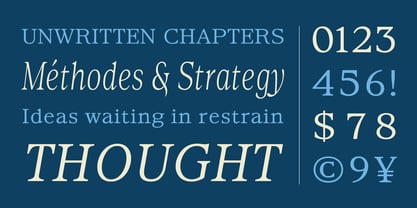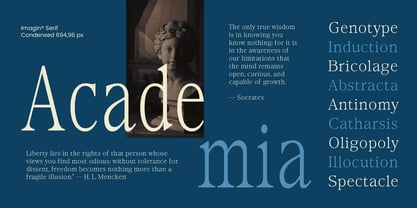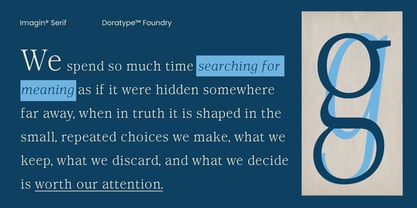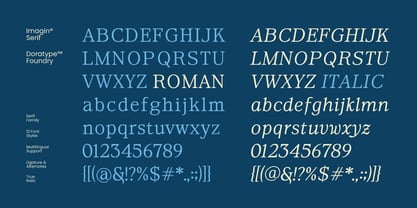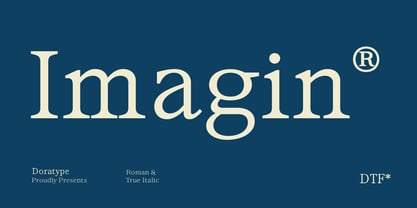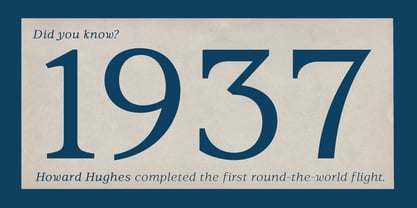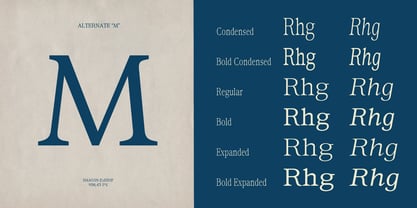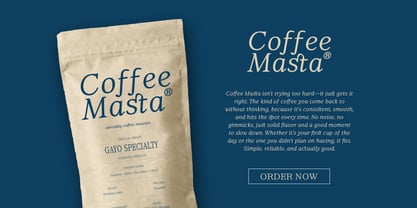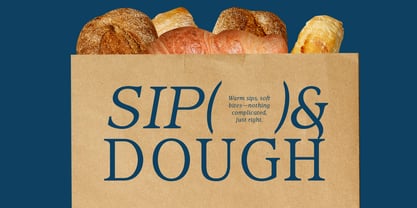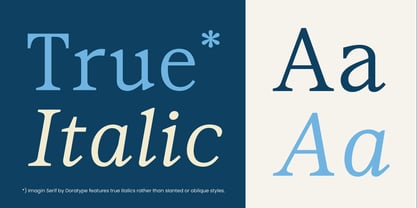
Imagin
by Dora Typefoundry
The Imagin Font Family was designed by Zahratul Laila and published by Dora Typefoundry. Imagin contains 12 styles and family package options. More about this family
Imagin is an elegant serif typeface with a warm, classic feel. Its letterforms have a subtle contrast between thick and thin, with gentle curves, creating a welcoming feel. The detailed terminals and balanced proportions make it easy to read. this font is suitable for branding, editorial, and visual displays that want to emphasize a sense of luxury and trustworthiness. The accompanying Roman and italic styles add flexibility, making it an ideal choice for designs that require a consistent, modern, classic feel.
Designers: Zahratul Laila
Foundry: Dora Typefoundry